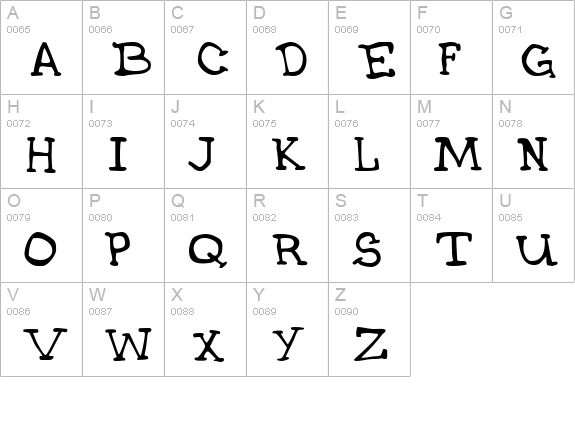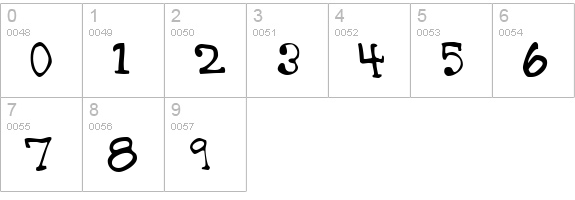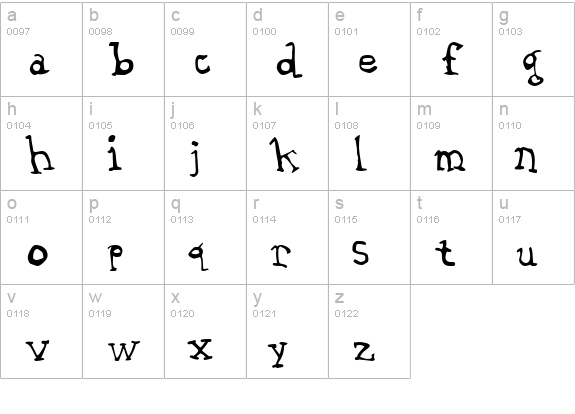
Garth Hand Font Details
Garth Hand font is a charming and whimsical typeface that brings a touch of handcrafted elegance to your designs. With its playful yet sophisticated style, Garth Hand is perfect for adding a personal and unique flair to any project. Whether you're designing invitations, posters, or branding materials, this font is sure to make a statement. What's even better is that Garth Hand font is available for free download at FontsMarket.com. Embrace the creativity and individuality that this font embodies without breaking the bank. Download Garth Hand today and let your creativity soar with this delightful and versatile typeface.